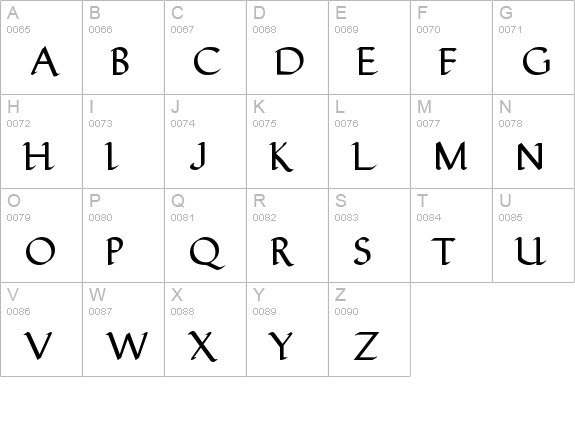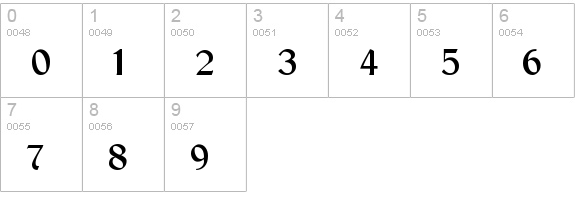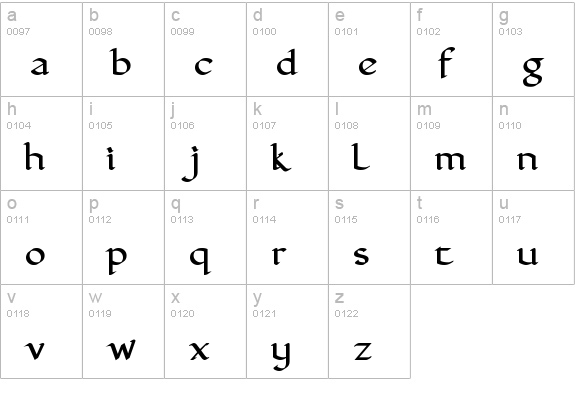
Gunther Calligraphic Regular Font Details
Gunther Calligraphic Regular is the standard, neutral variant in the Gunther typeface family \xE2\x80\x94 well suited to general body text, paragraphs, and standard typographic work.
Gunther Calligraphic Regular font is a timeless and elegant typeface that exudes sophistication and charm. Its graceful strokes and intricate details make it the perfect choice for projects that require a touch of class and refinement. The flowing curves and delicate serifs of Gunther Calligraphic Regular font add a sense of warmth and beauty to any design. What sets Gunther Calligraphic Regular font apart is its versatility - it can be used for a wide range of applications, from wedding invitations to branding materials to logo designs. Whether you're working on a romantic wedding invitation or a high-end luxury brand, Gunther Calligraphic Regular font will elevate your project to new heights. The best part? Gunther Calligraphic Regular font is available for free download at FontsMarket.com. Now you can access this stunning typeface without breaking the bank. Don't miss out on the opportunity to add Gunther Calligraphic Regular font to your font collection and take your designs to the next level.